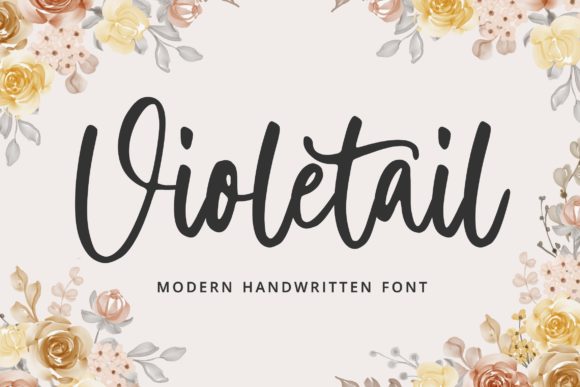
Step into the kingdom of beauty and elegance with Violetail Modern Font, a calligraphic marvel that will make your designs blossom with sophistication. Inspired by the grace of a swan's dance and the warmth of a summer breeze, Violetail Modern Font is a feast for the eyes, inviting you to embark on a journey of creativity.
This exquisite script font, the brainchild of the talented Balpirick, exudes a timeless charm, reminiscent of a vintage love letter written with a feather pen. Its flowing lines and delicate swashes dance across the page, creating an enchanting aura that captivates the senses. Whether you're crafting a wedding invitation, a personal letter, or a heartfelt poem, Violetail Modern Font will add an undeniable touch of finesse and grace.
With its versatile nature, Violetail Modern Font seamlessly adapts to a myriad of projects. From whimsical logos and elegant branding to eye-catching social media posts and stunning posters, this font is your creative chameleon, ready to transform your designs into works of art. Its versatility knows no bounds, making it the perfect choice for a wide range of endeavors, including:
- Wedding stationery that radiates romance and timeless beauty
- Logos that exude sophistication and professionalism
- Blog post titles that captivate and intrigue your audience
- Invitations that set the scene for unforgettable gatherings
- Posters that make a bold statement and leave a lasting impression
Unleash your inner artist and let Violetail Modern Font guide you on a journey of creativity. Its enchanting beauty and versatility will elevate your designs to new heights, leaving a trail of admiration and intrigue wherever it goes. Join the ranks of those who have discovered the magic of Violetail Modern Font and experience the joy of creating designs that resonate with elegance and grace.